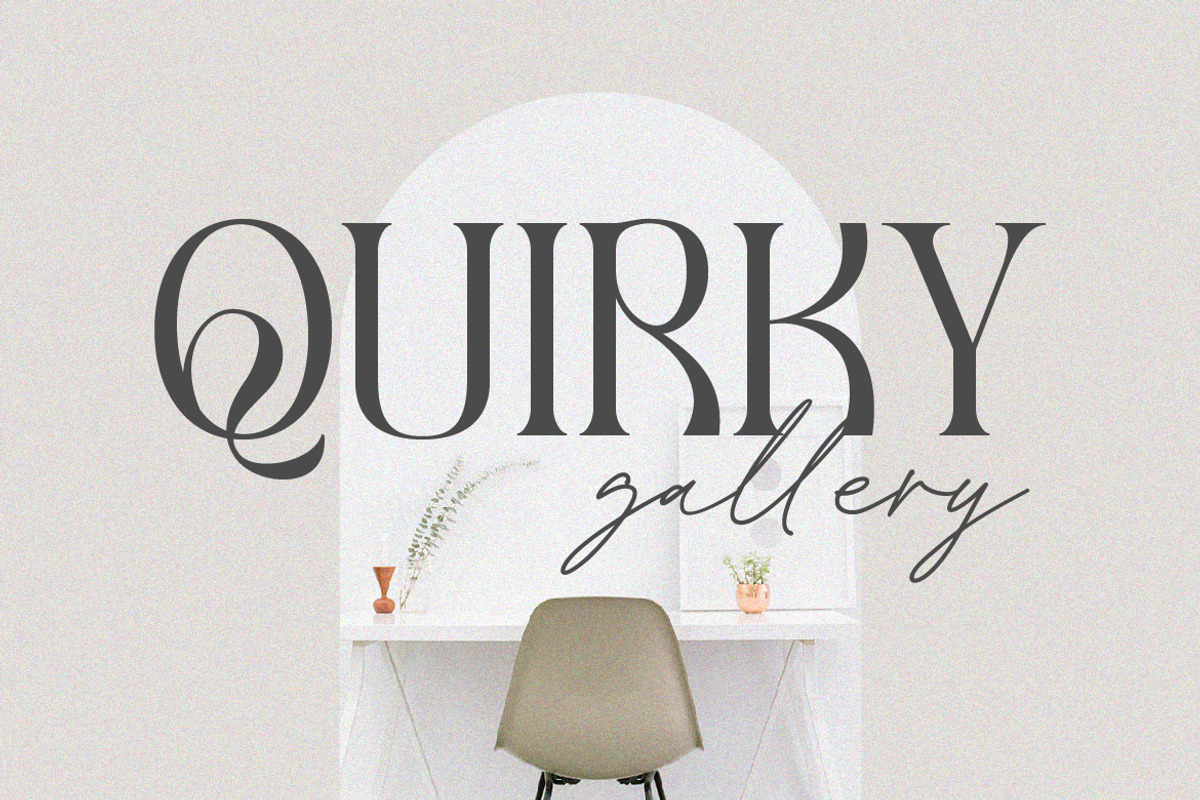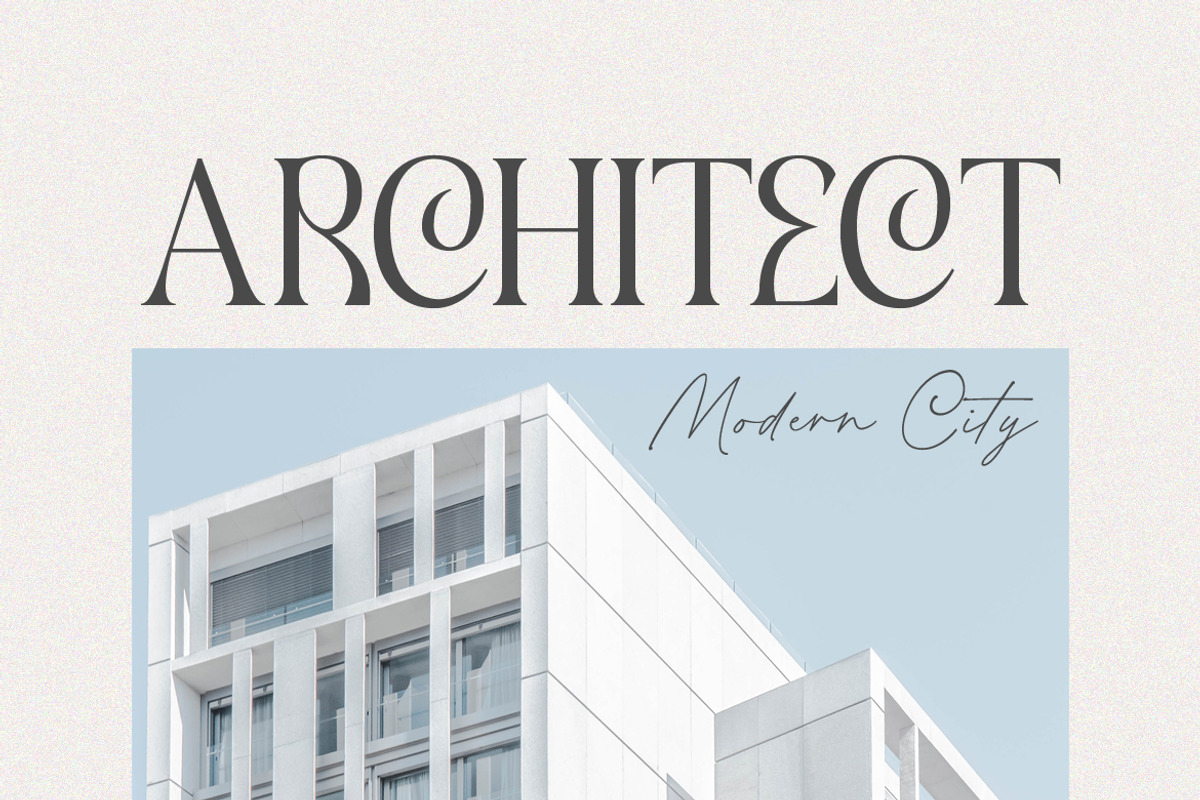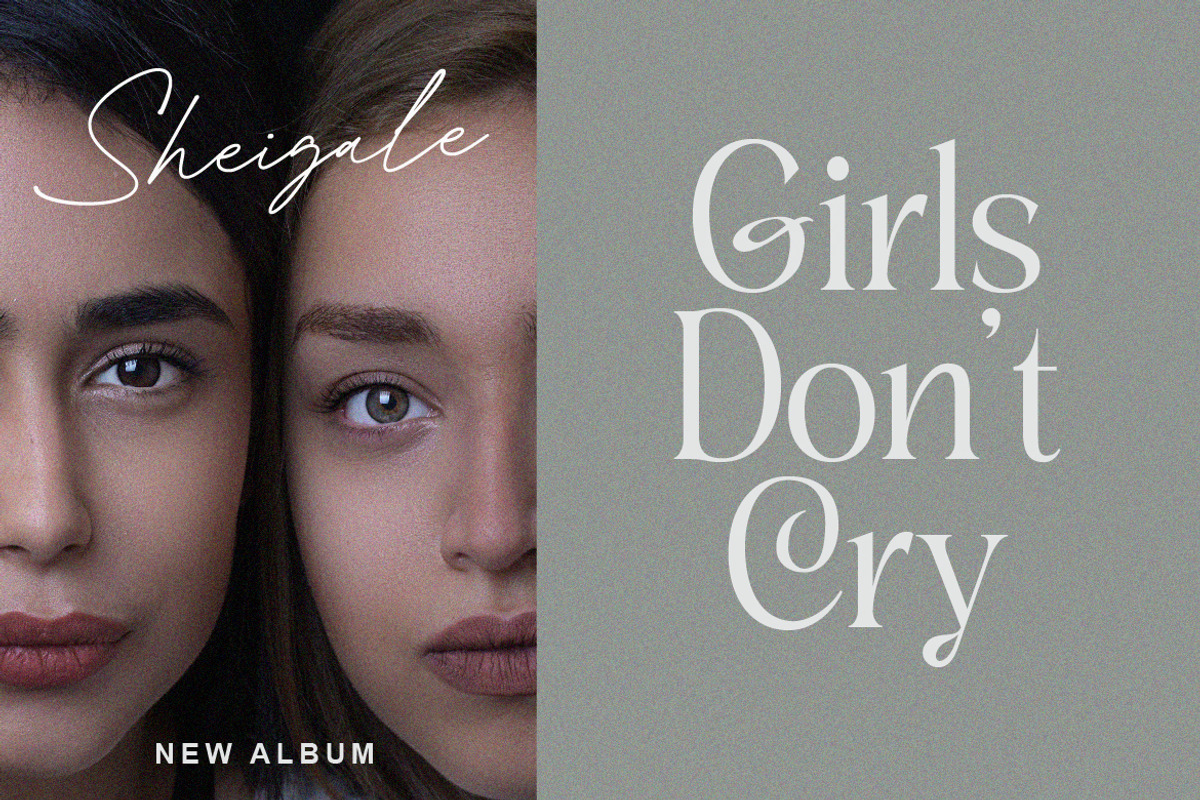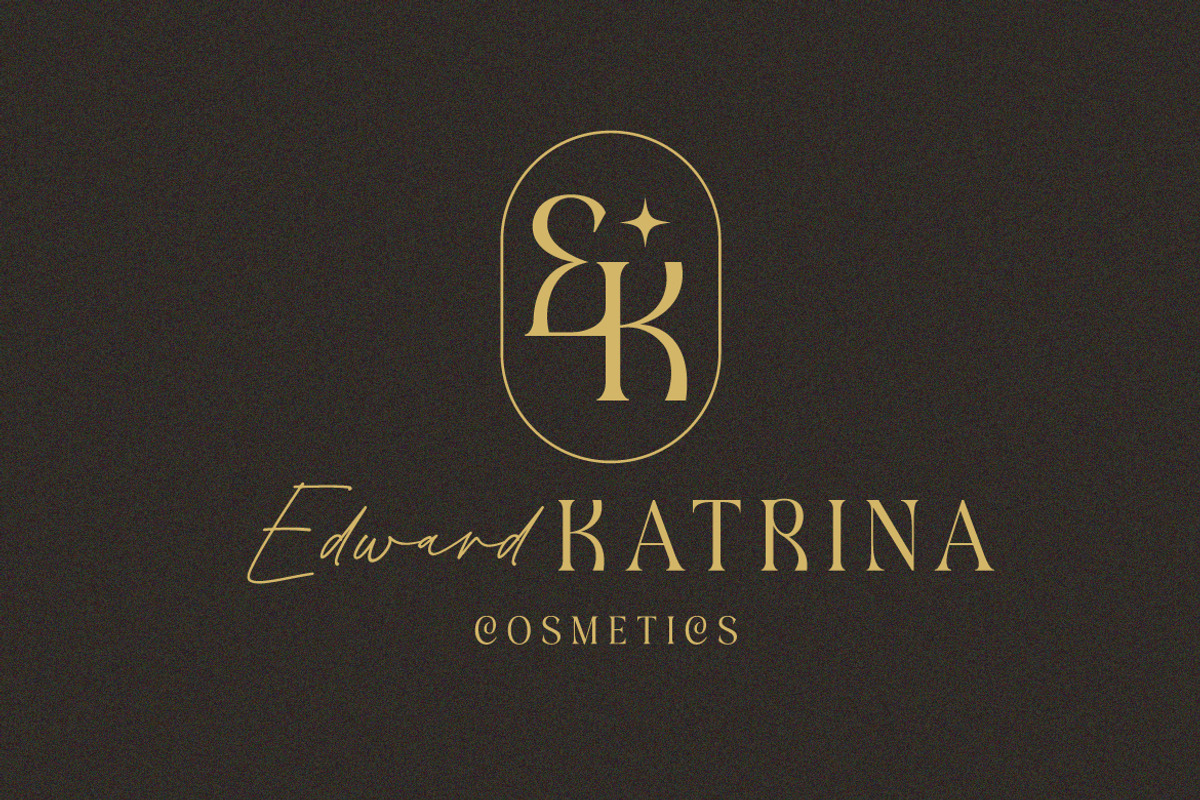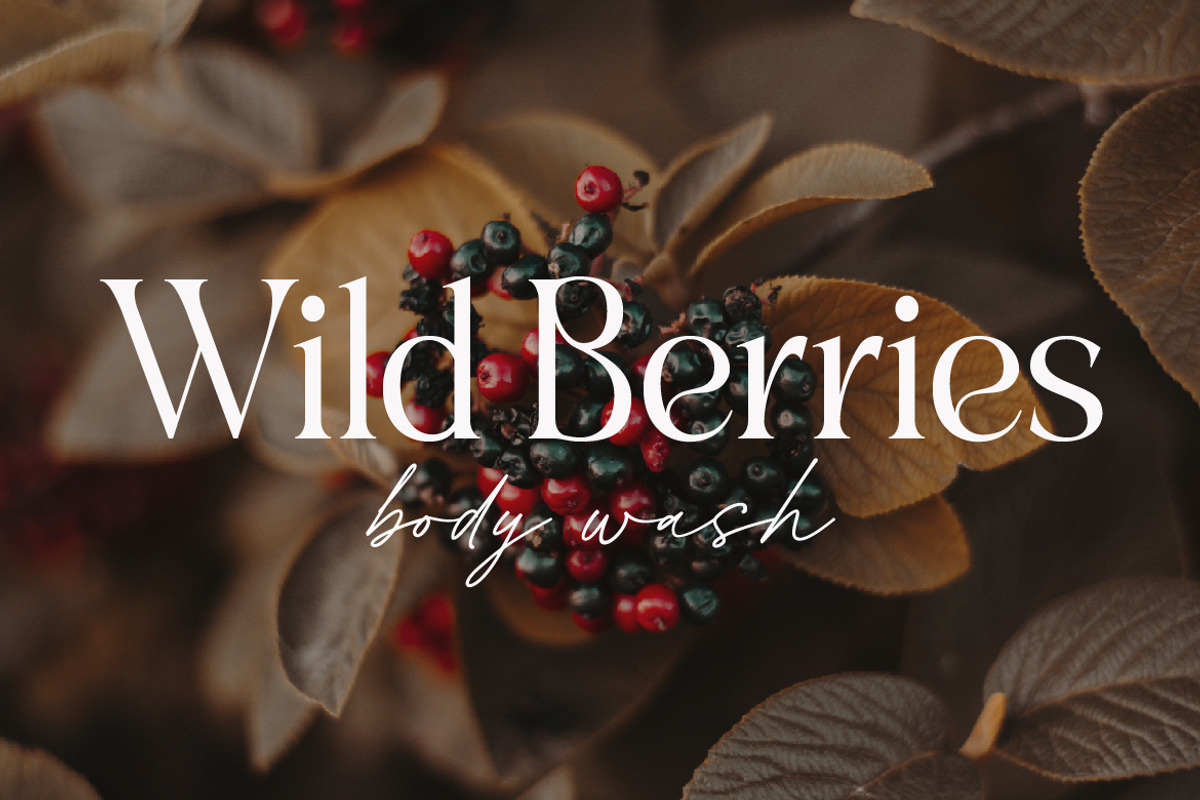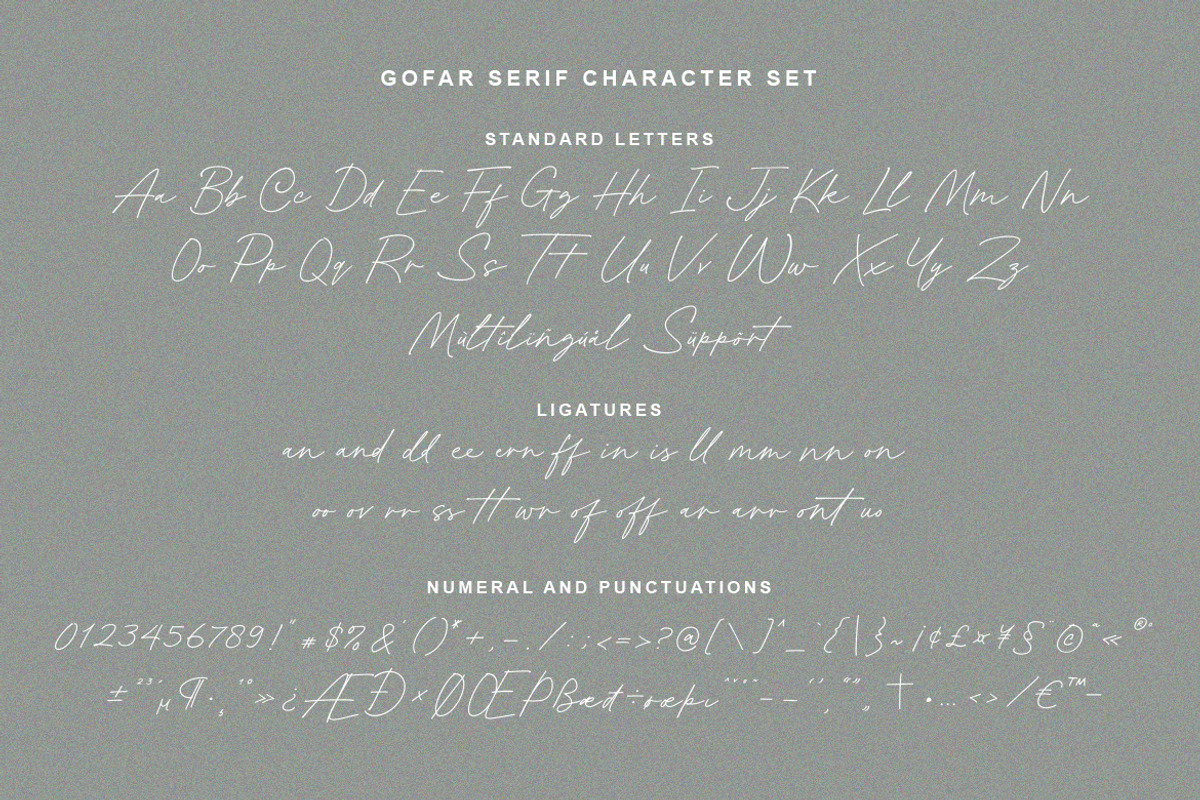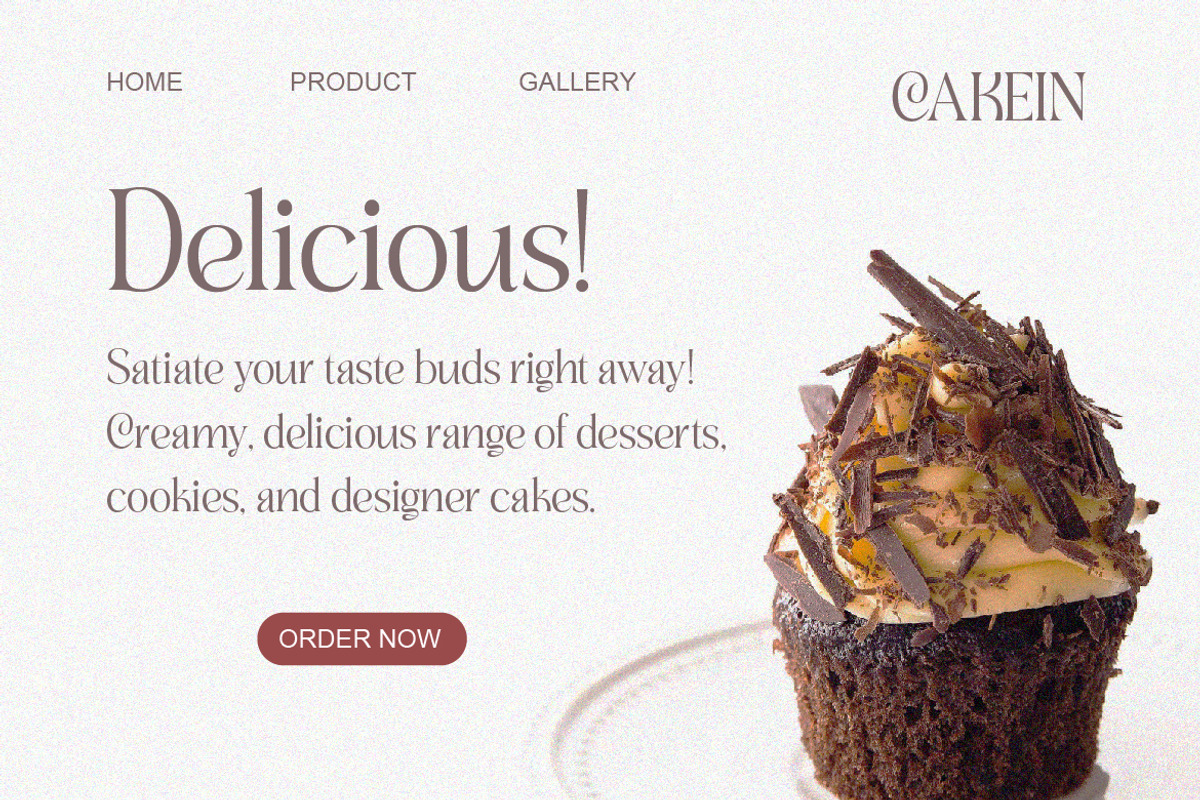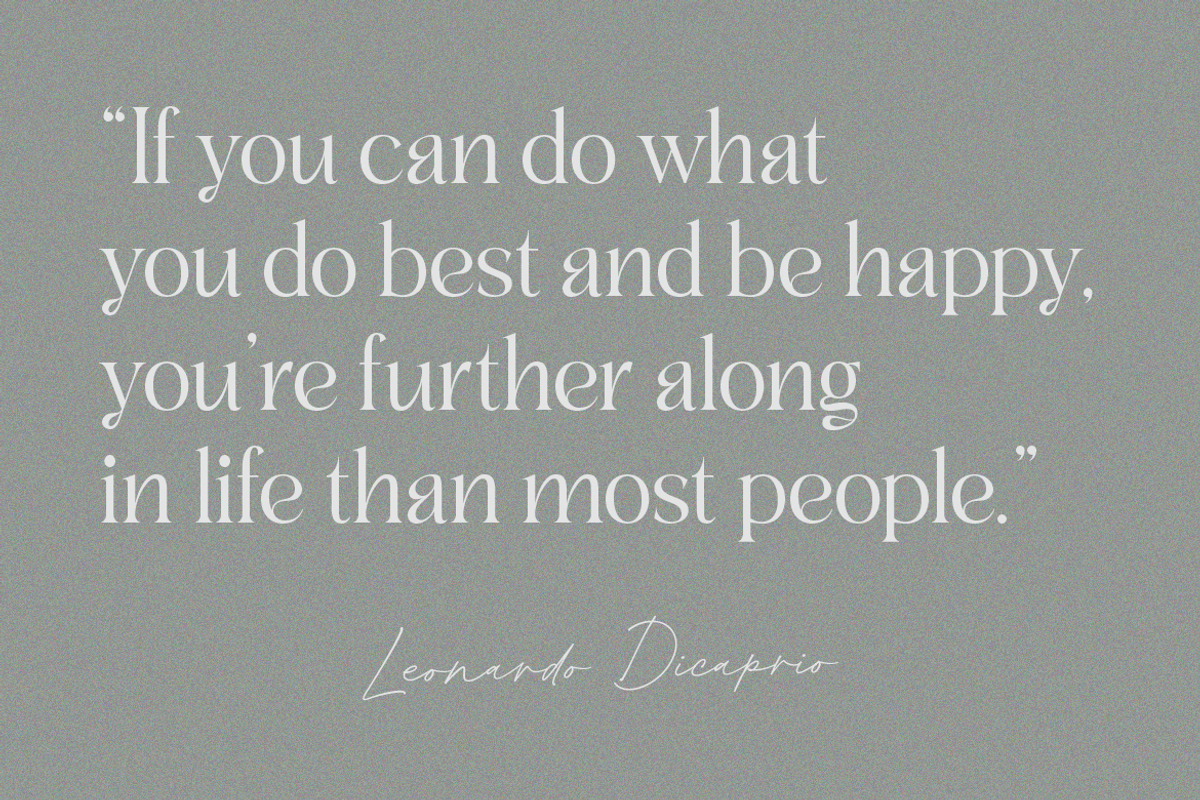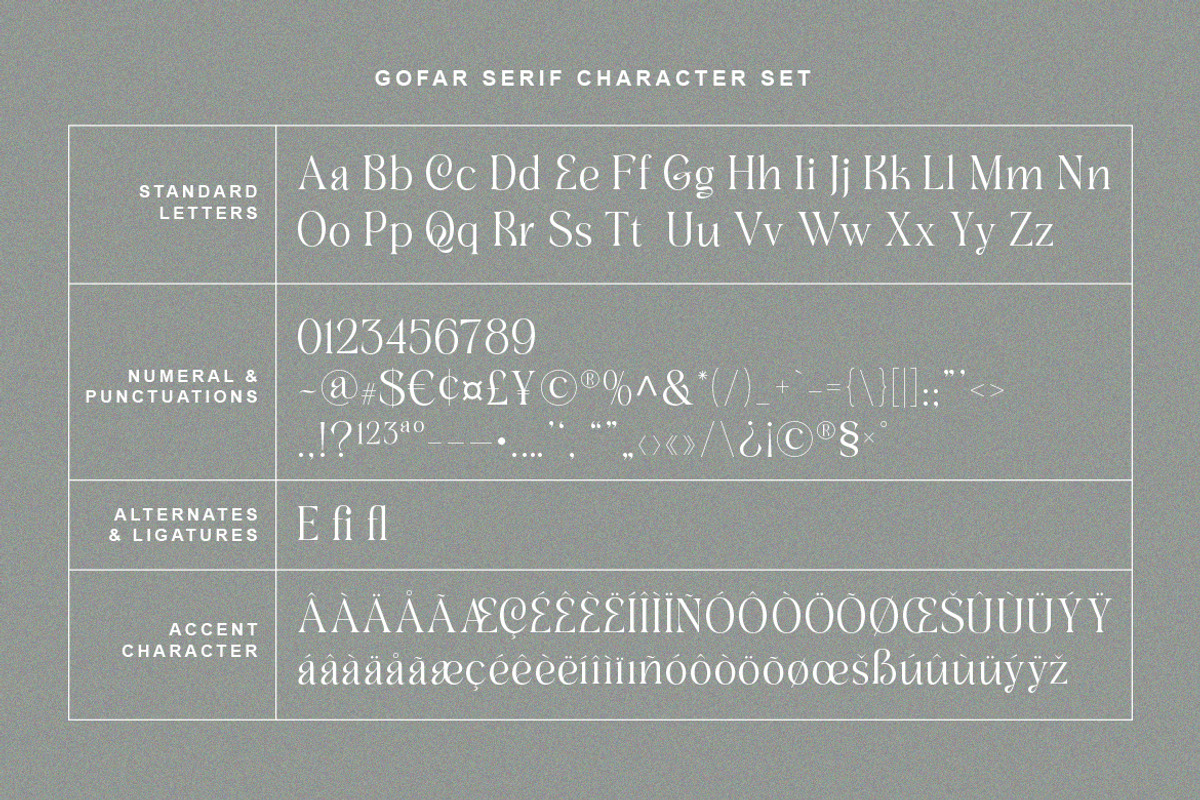
Gofar | Font Duo
Gofar is a font duo that combine Serif and Script font. The Gofar Serif font looks contemporary and modern, some letters has unique form. You will also find Gofar Script with ligatures that beautiful to pair with. This font perfect for every project like branding, editorial design, book, logo, website, social media, and any project you like.
- Gofar Serif font with full set of lowercase and uppercase letters, numerals and punctuation, multilingual characters, ligatures & alternates.
- Gofar Script font with full set of lowercase and uppercase letters, numerals and punctuation, multilingual characters, and ligatures.